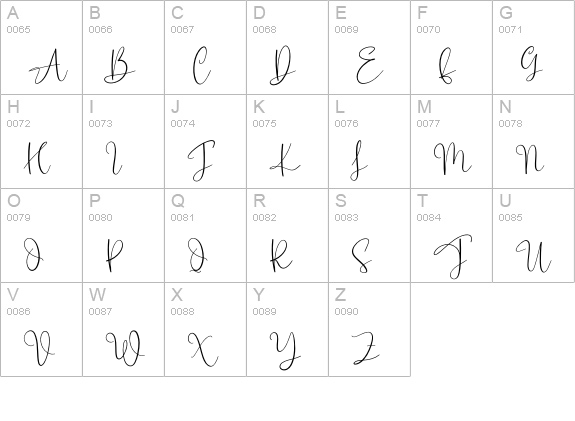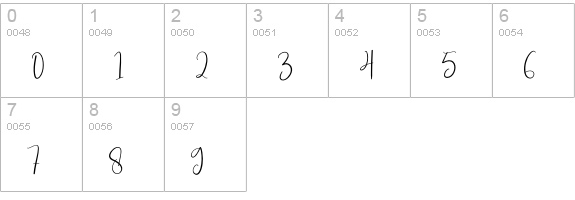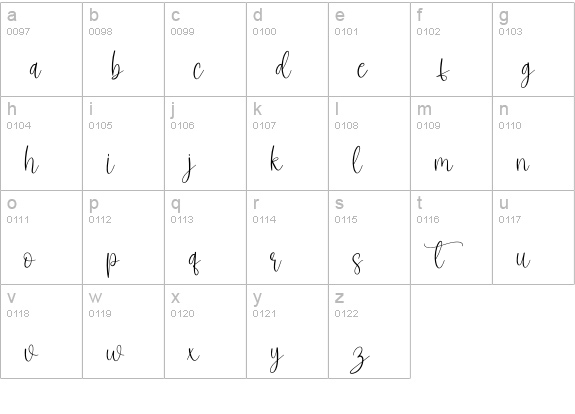
Sometime Signature font is a beautifully crafted typeface that exudes elegance and sophistication. With its stylish curves and flowing strokes, this font is perfect for adding a touch of luxury to your designs. Whether you're working on invitations, branding, or any other project that requires a touch of class, Sometime Signature is sure to elevate your work to the next level.